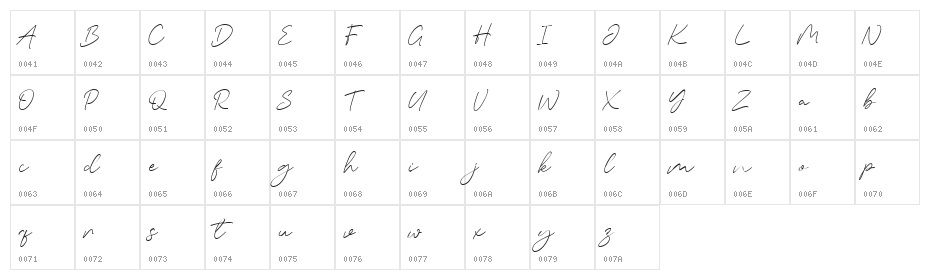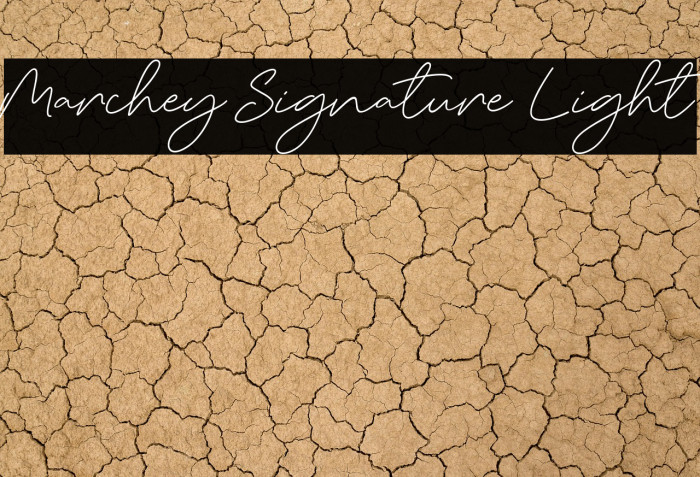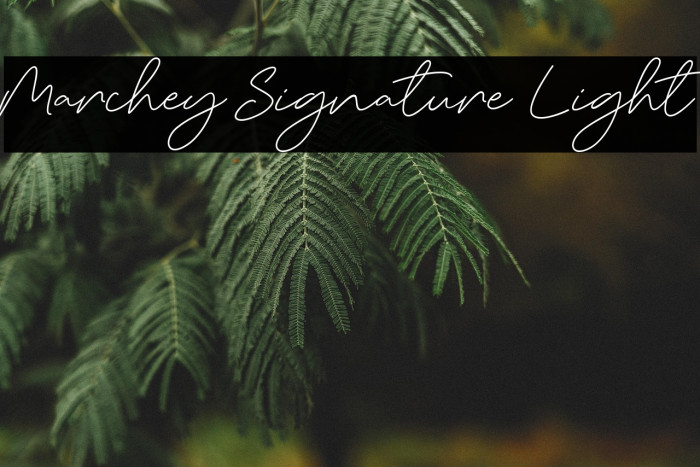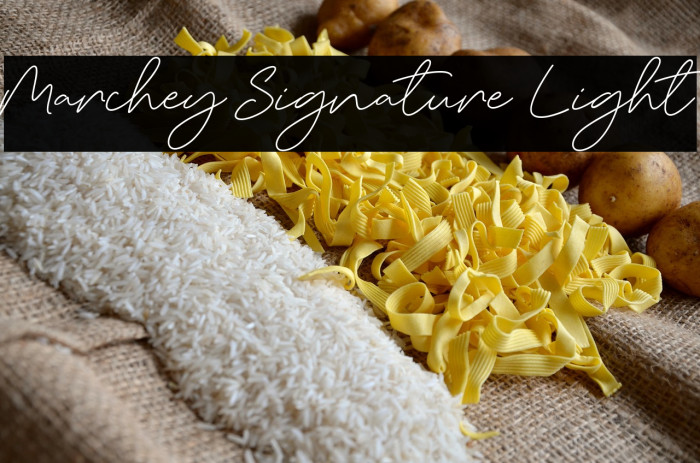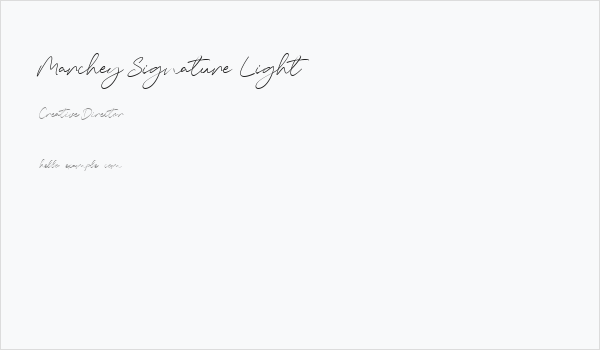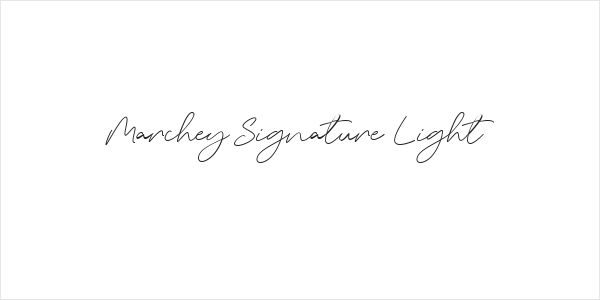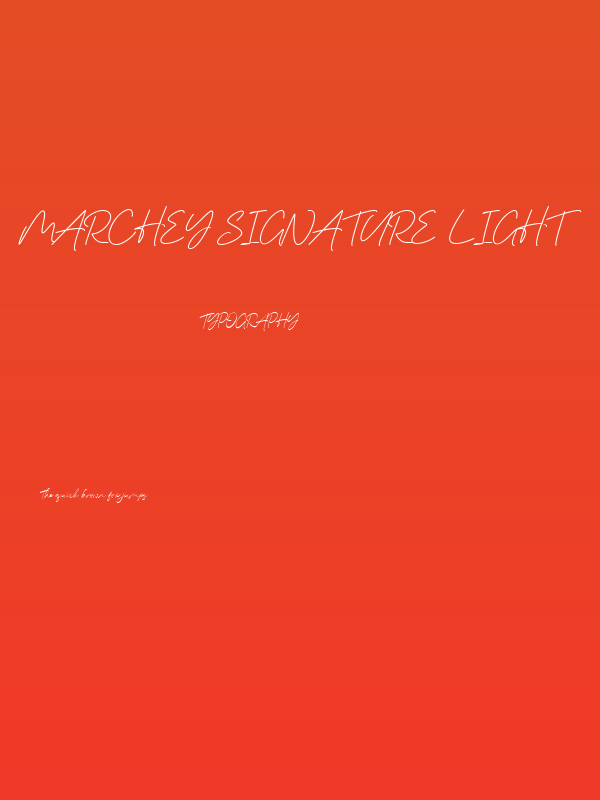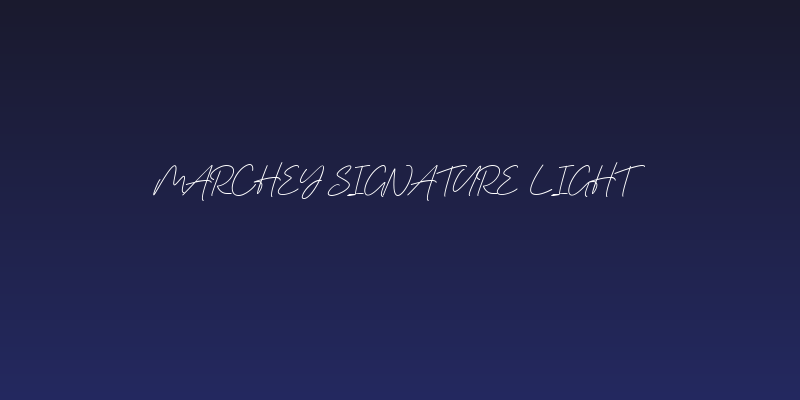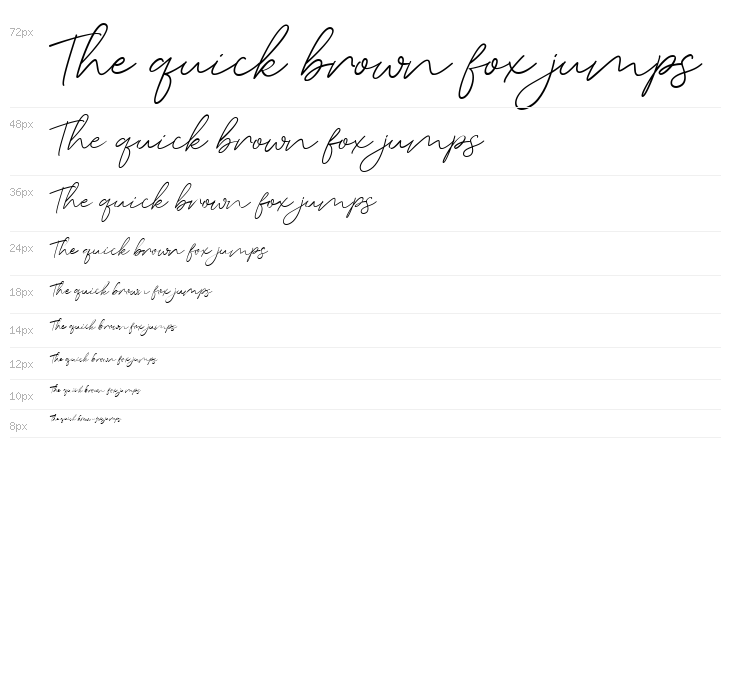
Marchey Signature Light Font
Marchey Signature Light Description
A light, flowing script font with a handwritten, signature-like appearance. The strokes are thin and elegant, with natural, slightly irregular connections between letters, giving it an authentic and personal feel.
| Overall Style | Modern, Handwritten, Decorative |
| Use Case | Signatures, Invitations, Branding, Headlines |
| Proposed Projects | Personal branding, wedding invitations, logos, greeting cards, social media graphics. |